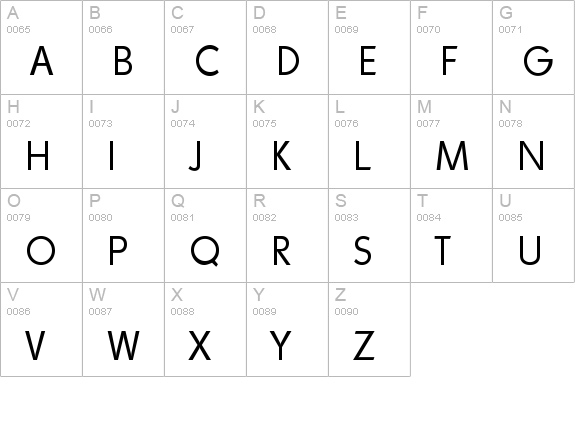
Ornitons-Light is a refined, elegant variant in the Ornitons typeface family \xE2\x80\x94 well suited to elegant body text, refined sub-headings, and luxury branding.
Ornitons-Light font is a stunning and elegant typeface that is sure to make your designs stand out. Its delicate and sophisticated appearance makes it perfect for various projects, from branding to invitations and everything in between. The slim and graceful letterforms exude a sense of refinement and beauty that will elevate any design it is applied to. What makes Ornitons-Light font even more special is that it is available for free download at FontsMarket.com. Yes, you read that right - this exquisite font can be yours at no cost, allowing you to add a touch of class to your projects without breaking the bank. Whether you are working on a personal project or a client's design, Ornitons-Light font is a versatile and eye-catching choice that is sure to impress. Download it today and see for yourself the magic it can bring to your creations.